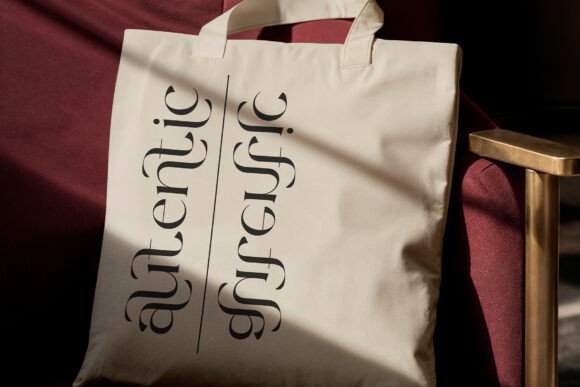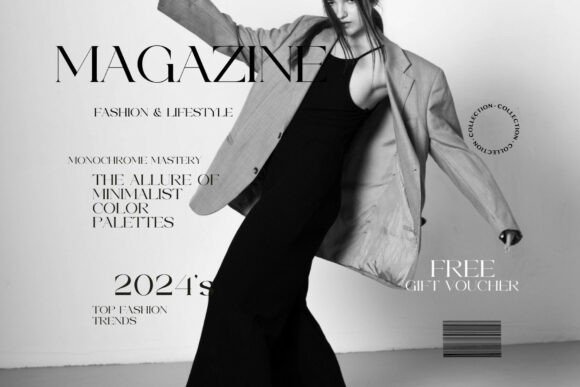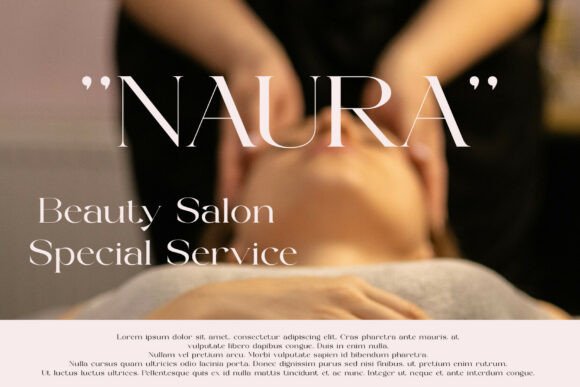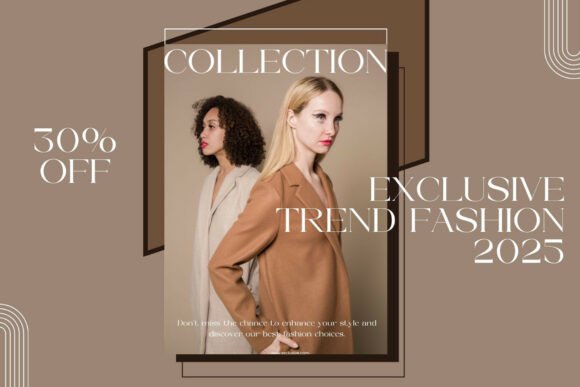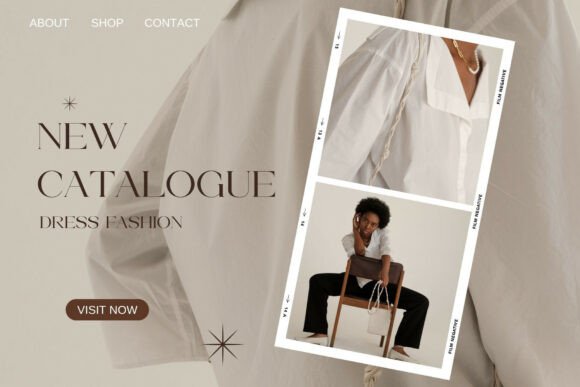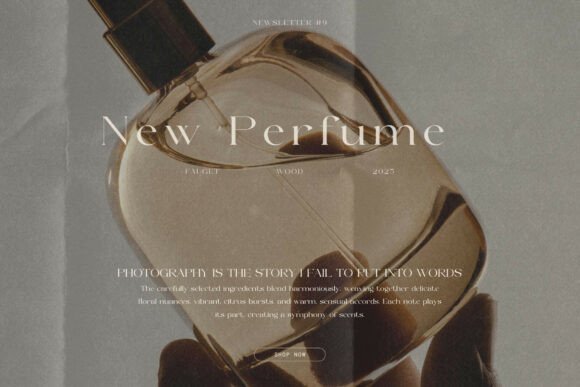
Introduction to Qaster Font Font
Fonts play a crucial role in design, and the Qaster Font font is a typeface that brings both character and versatility to any project. Whether you’re working on a branding project, a website, or a print design, the Qaster Font font offers a unique style that can elevate your work.
Embrace complete typographic luxury with Qaster, a magnificent modern beauty elegant font.
This premium display typeface takes classical serif geometry and infuses it with fluid, calligraphic romanceโshowcasing sweeping teardrop terminals, elegant baseline loops, and soft, curving cross-stem ligatures Packed with comprehensive multilingual support and open-type alternates, it empowers designers to weave entirely customized letter layouts effortlessly.
Key Features of Qaster Font Font
- โ High-quality typeface designed for professional use
- โ Includes a wide range of glyphs and characters
- โ Ideal for logos, branding, websites, and print
Why Choose Qaster Font Font?
The Qaster Font font is more than just a typeface โ it’s a design tool that helps you communicate your message with style and clarity. Its unique character set and versatile design make it suitable for a wide range of applications, from elegant invitations to bold headlines.
With its carefully crafted letterforms and balanced proportions, the Qaster Font font ensures readability and visual appeal across all mediums.
What makes Qaster Font font special?
The Qaster Font font stands out with its unique design, exceptional readability, and versatility across various design applications.